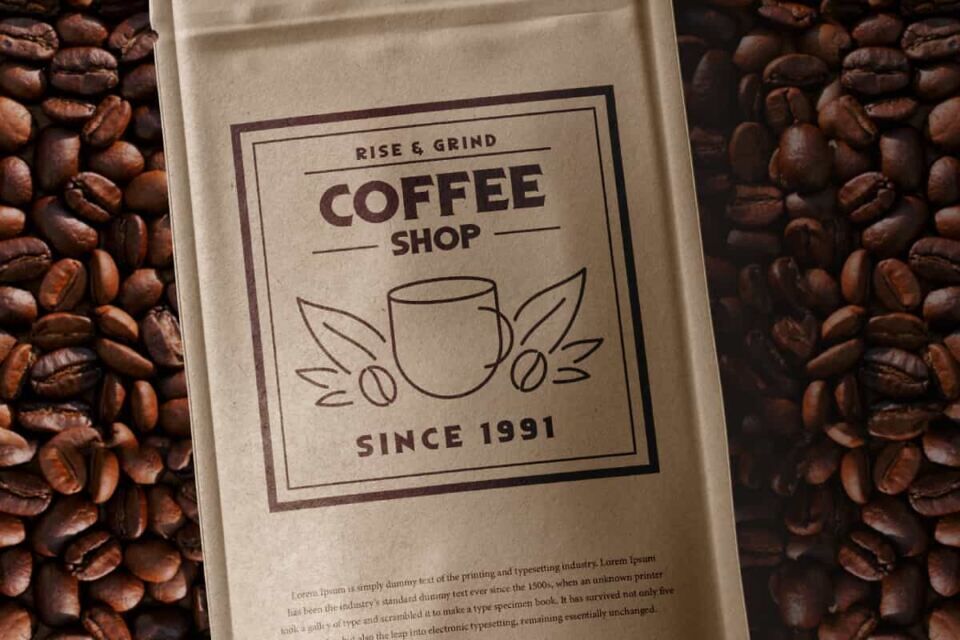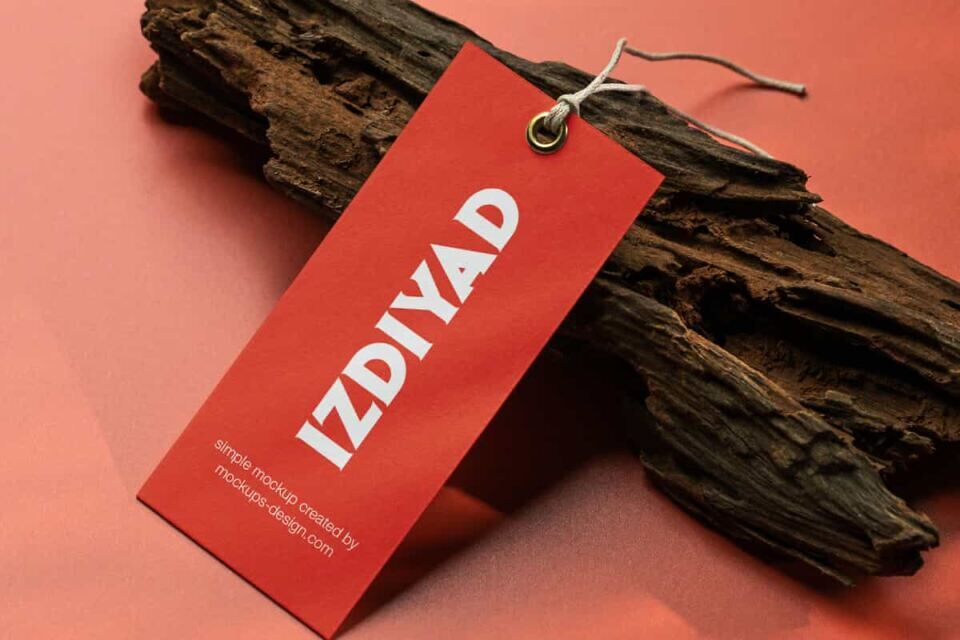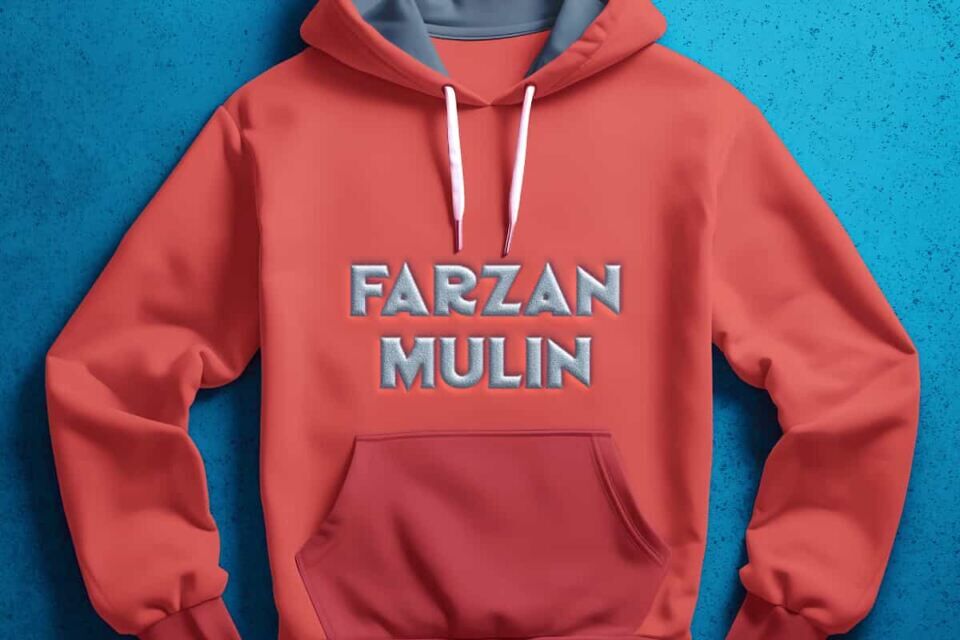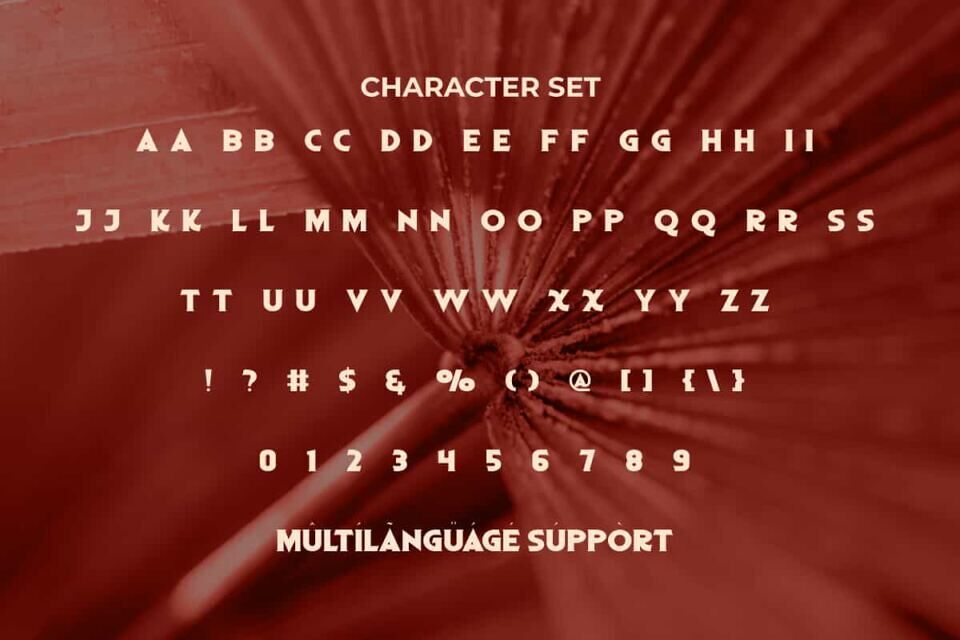
Red Flag Font
Red Flag Font is a strong on point, casual attractive serif display font by RaisProject. This font has thin lines with distinctive Serif ends that are quite prominent so that it can be read clearly.
It will be good for any designs, such as poster, signage, cover, menu, invitation, custom design, brand image, label, product packaging, quotes, stationery, web, and more!
Designed by: RaisProject